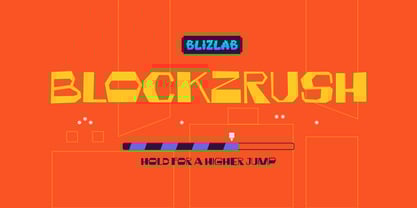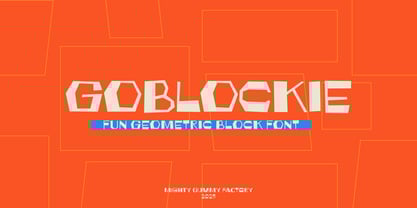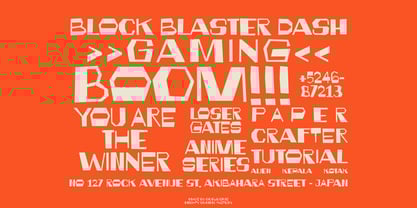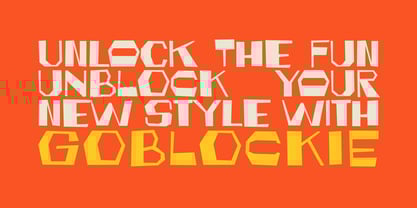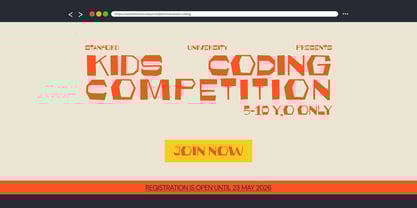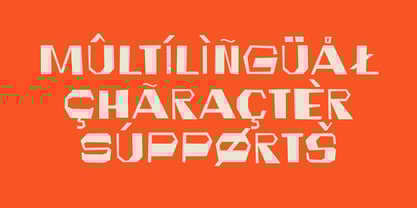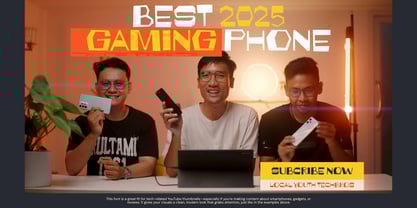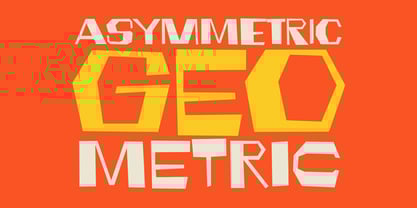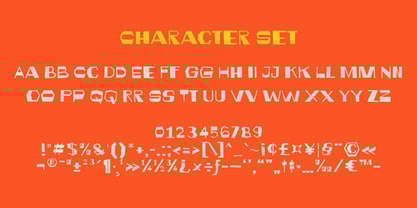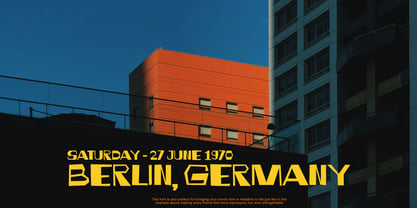
MGF Goblockie
The MGF Goblockie Font Family was designed by Gumilang Anggara Ruslan and published by Mighty Gummy Factory. MGF Goblockie contains 1 styles. More about this family
GOBLOCKIE is a bold and blocky display font packed with quirky geometric charm. Its fun, irregular letterforms are perfect for playful branding, kids-themed graphics, indie game design, or standout social media posts. Whether you’re designing for posters, packaging, or digital content, GOBLOCKIE brings energy, character, and standout appeal to every letter you type.
• Style & Energy:
GOBLOCKIE is a fun, quirky, and energetic display font built from bold, angular blocks. With its irregular geometry and confident posture, this typeface gives your message a burst of creative energy.
• Ideal For:
Youthful branding, kids’ content, educational posters, indie games, toy packaging, YouTube thumbnails, or any design that needs a playful punch.
• Letterform Structure:
Geometric, all-caps, handcrafted with offbeat polygonal cuts and stylized corners.
• Best Use Cases:
Logo design, poster headlines, video titles, children’s book covers, DIY packaging, modern flyers, and digital stickers.
Tired of boring fonts that don’t move the needle? GOBLOCKIE is your perfect design sidekick—a bold, blocky typeface full of attitude and edge. Whether you're working on a kid-friendly campaign or a cool creative project, GOBLOCKIE makes sure your message lands with impact.
• Full uppercase A–Z (playful alternates)
• Numbers & essential punctuation
• Unique character shapes inspired by modular blocks
• Designed for high visibility and creative branding
Perfect For:
• Kids product branding
• Creative social media graphics
• Poster and flyer headlines
• Indie video game titles
• YouTube & streaming overlays